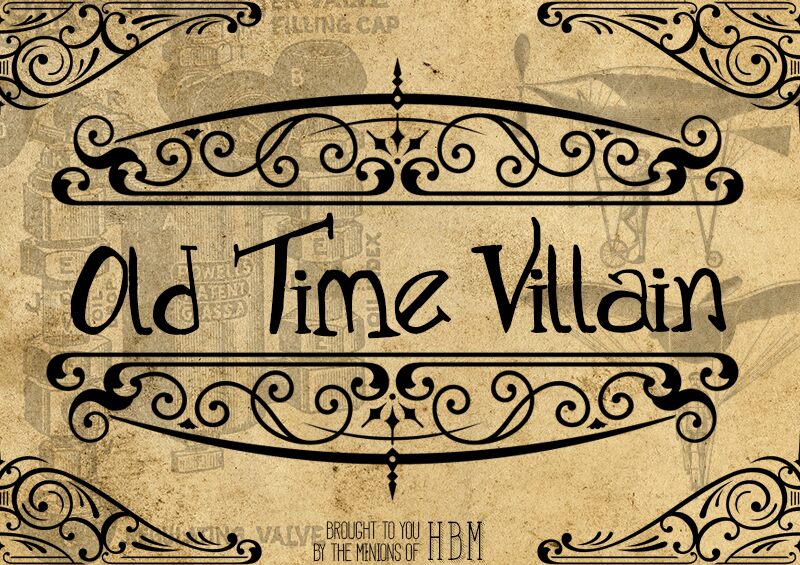
Old Time Villain
Old Time Villain is a captivating display font that effortlessly evokes the grandeur and intrigue of Victorian-era writings. Its hand-crafted aesthetic, with non-uniform character sizes and elegant flourishes, lends an air of historic charm and villainous allure.
This font is perfect for those seeking to add a touch of old-world sophistication and dramatic flair to their designs. From book covers and movie posters to branding and typography-driven layouts, Old Time Villain's unique personality can elevate a wide range of creative projects, transporting viewers to a bygone era of sweeping narratives and dastardly plots.